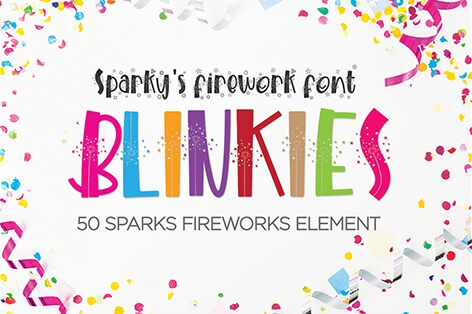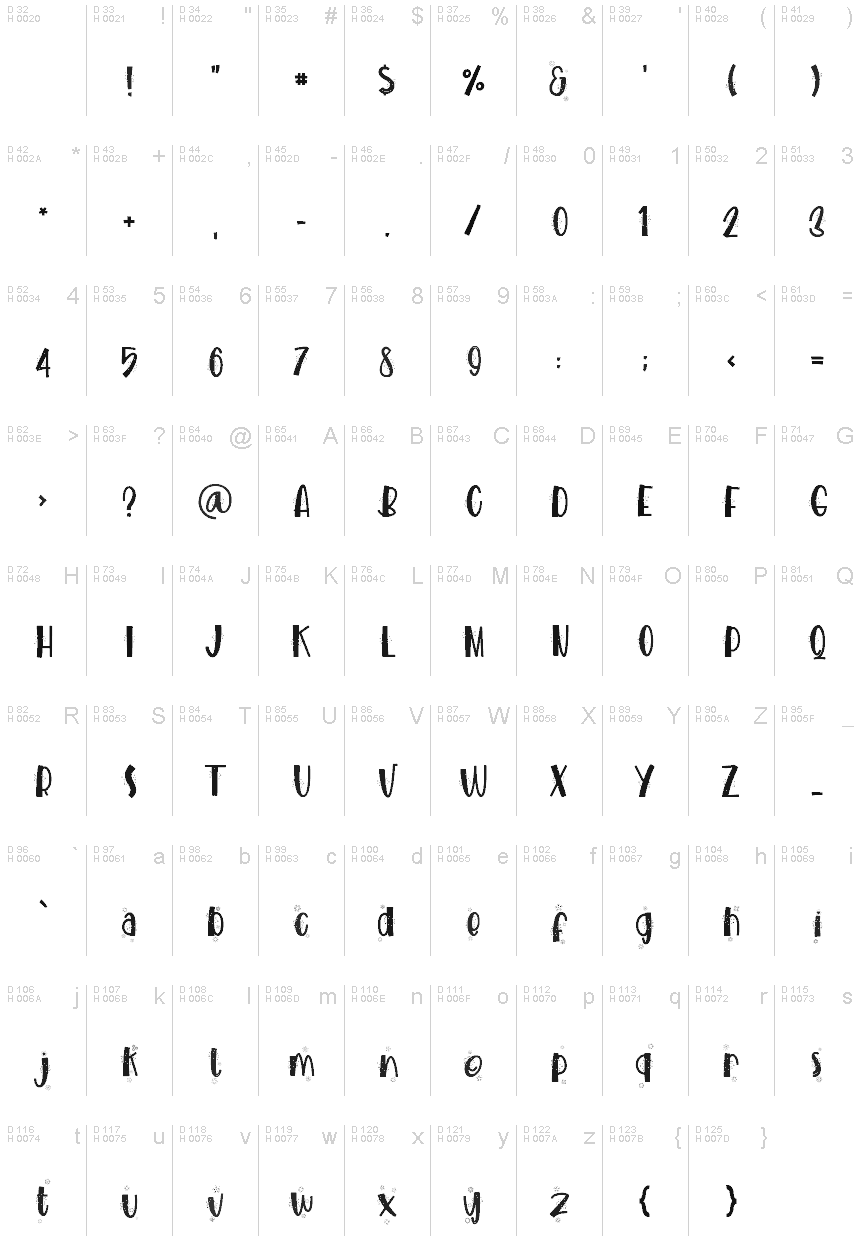
BLINKIES
Introduction my new font: BLINKIES
A sparky's firework font
A fun, cheerful, happiness hand-written stylish, Character set, Numerical, Punctuation Ligature set, and vector spark fireworks element. With the excitement created for all your design projects. I dedicate this font to all greeting cards, including welcoming this new year 2019.
A sparky's firework font
A fun, cheerful, happiness hand-written stylish, Character set, Numerical, Punctuation Ligature set, and vector spark fireworks element. With the excitement created for all your design projects. I dedicate this font to all greeting cards, including welcoming this new year 2019.